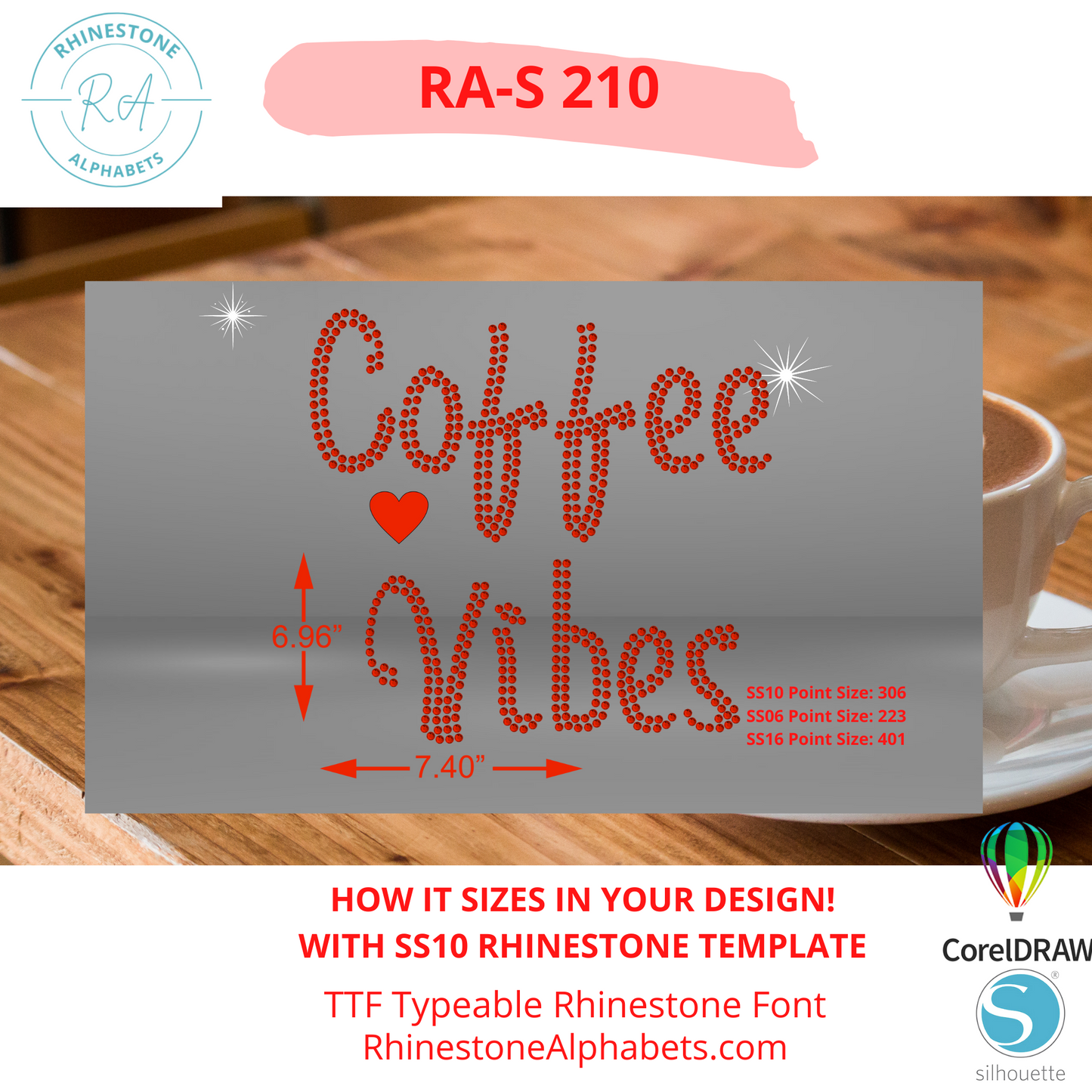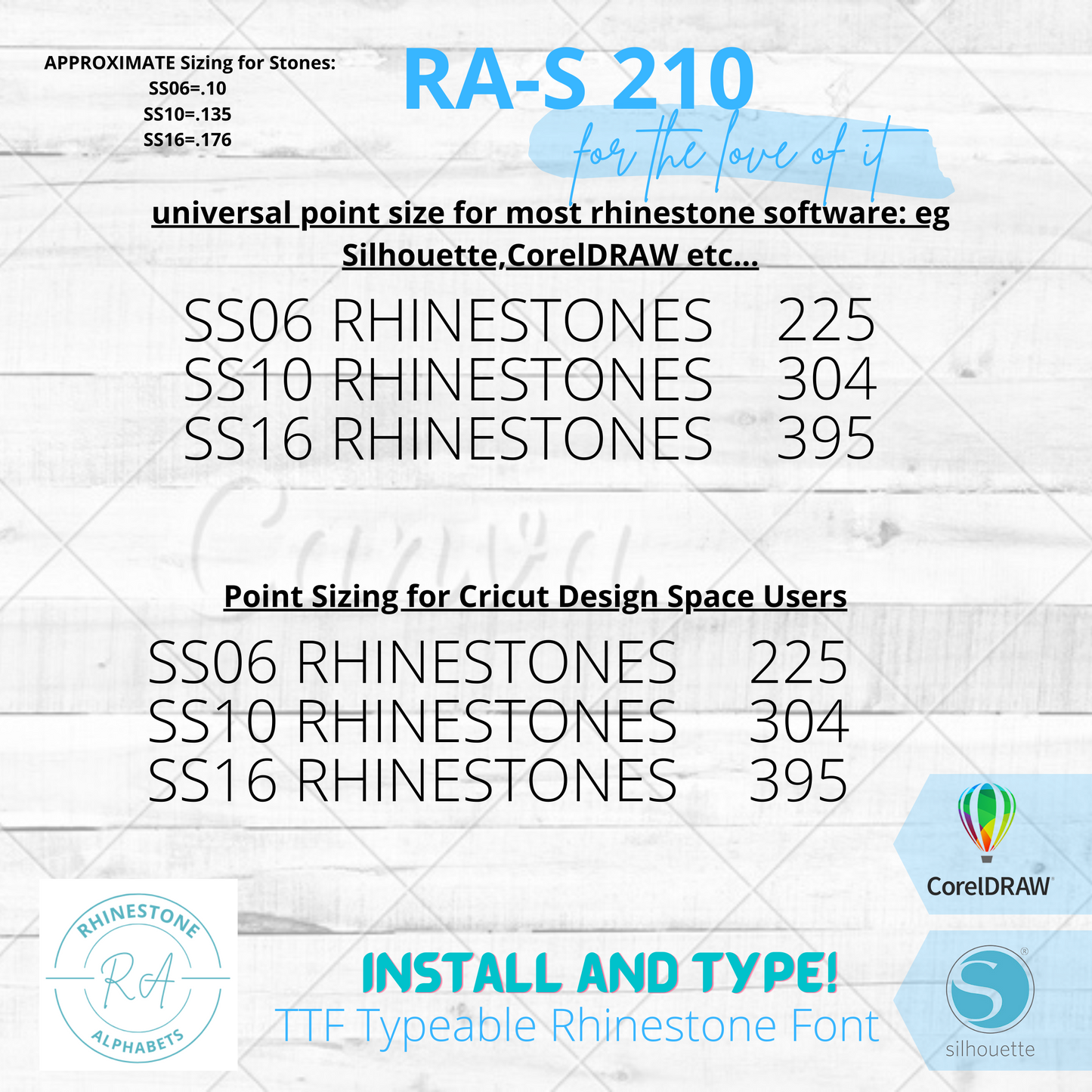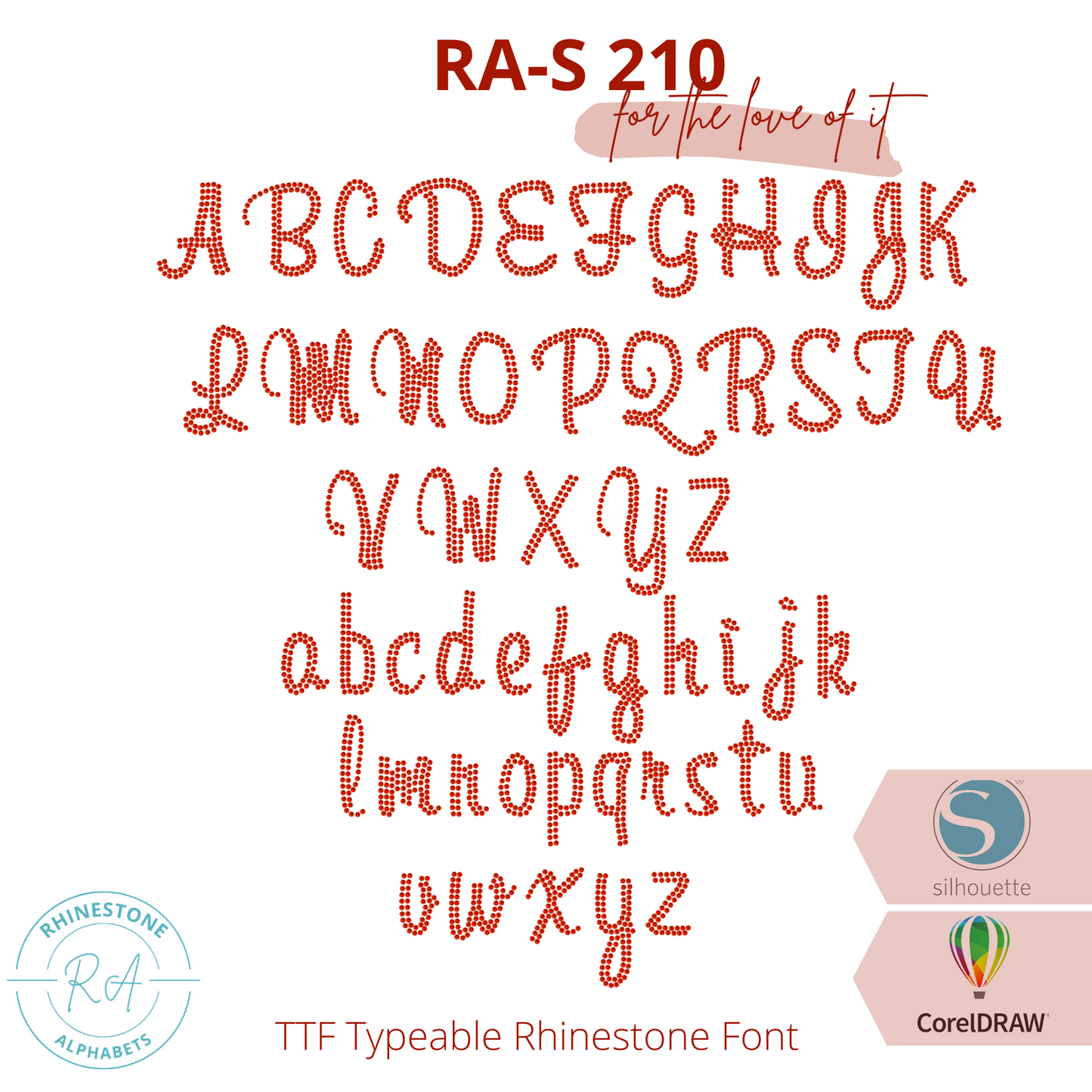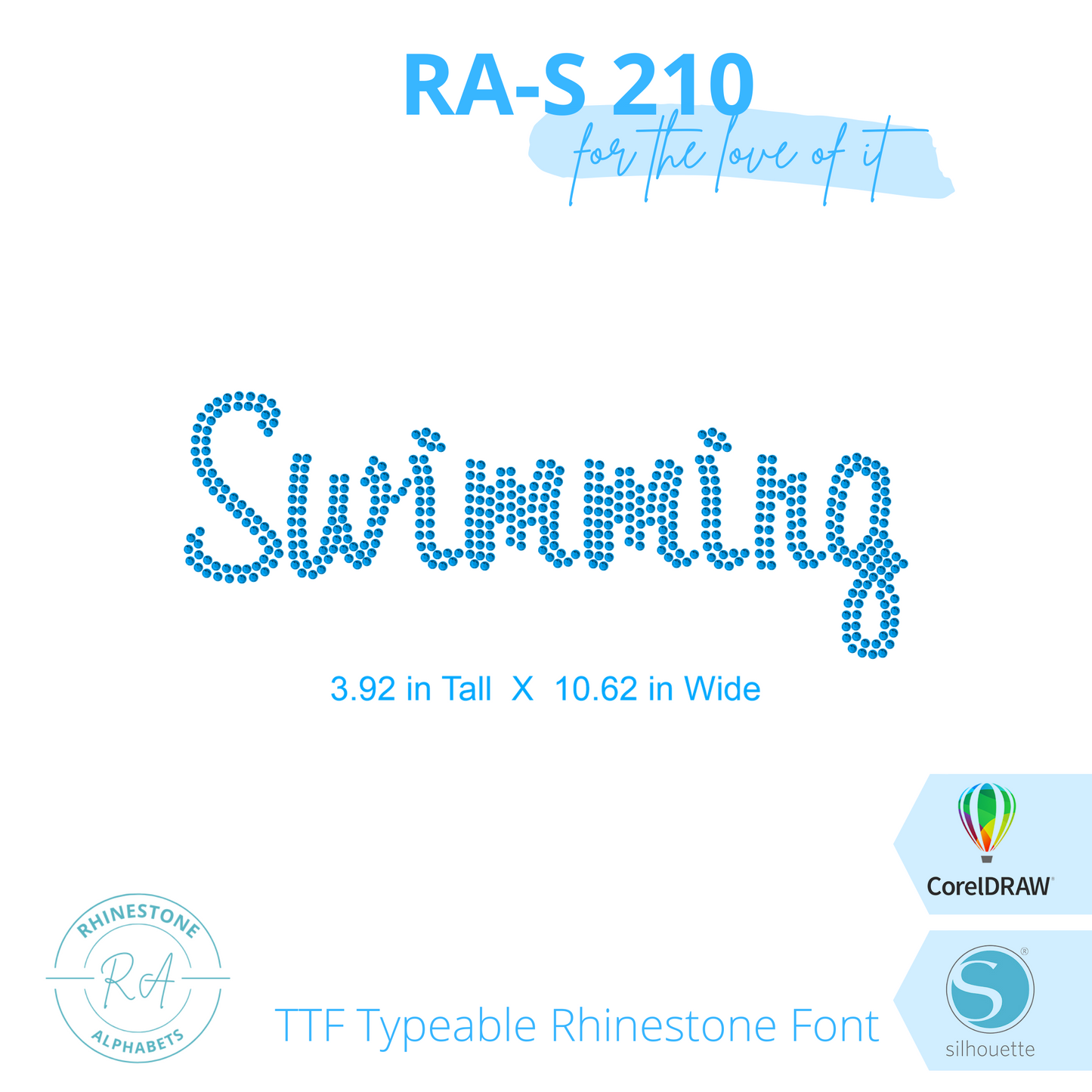
RA-S 210 Cursive Font
uppercase/lowercase
2.66"
Cursive
RA-S 210 is a Cursive Font! It is LOVELY. Double Lines, upper and lower case lettering, and we use it ourselves often in designing.